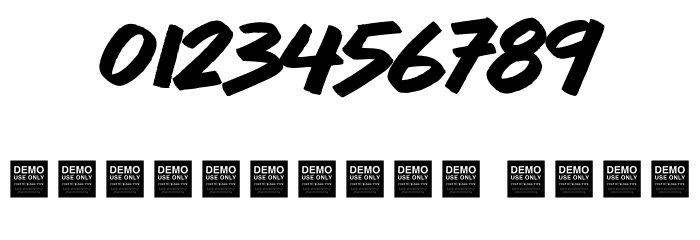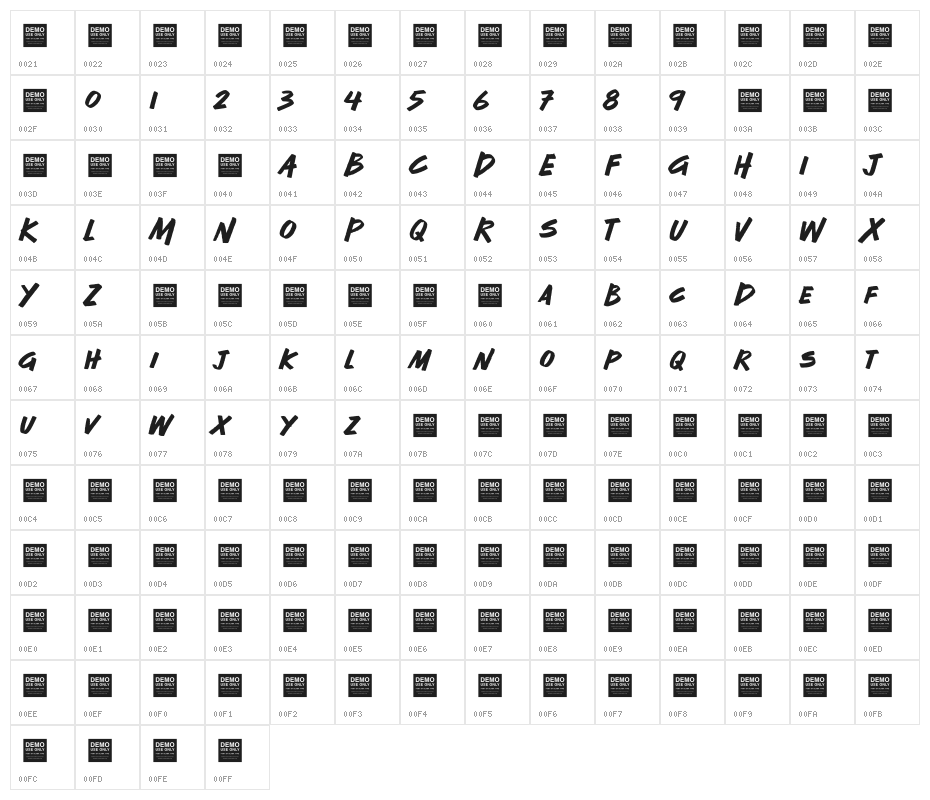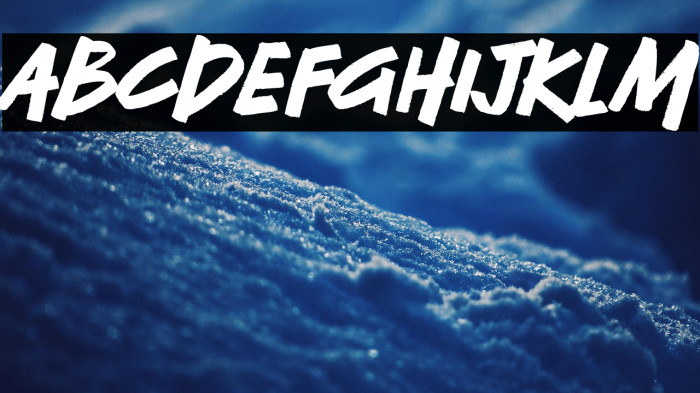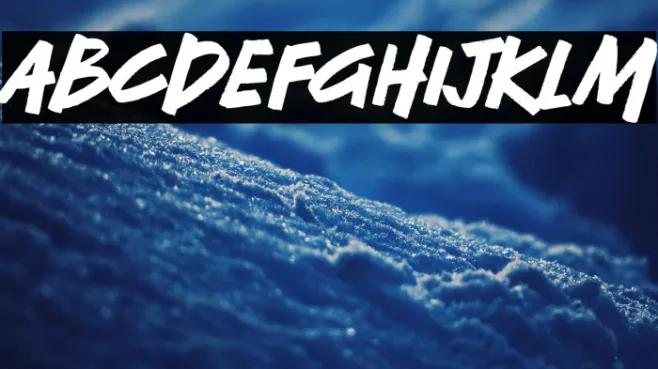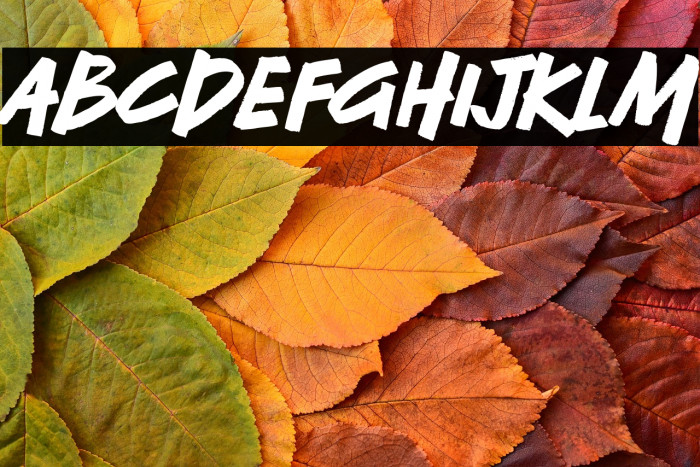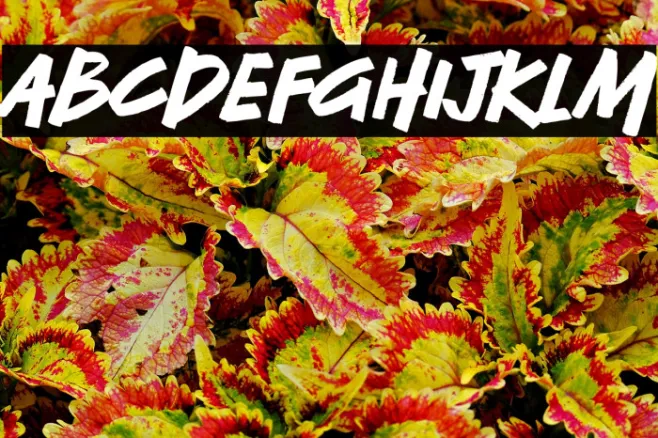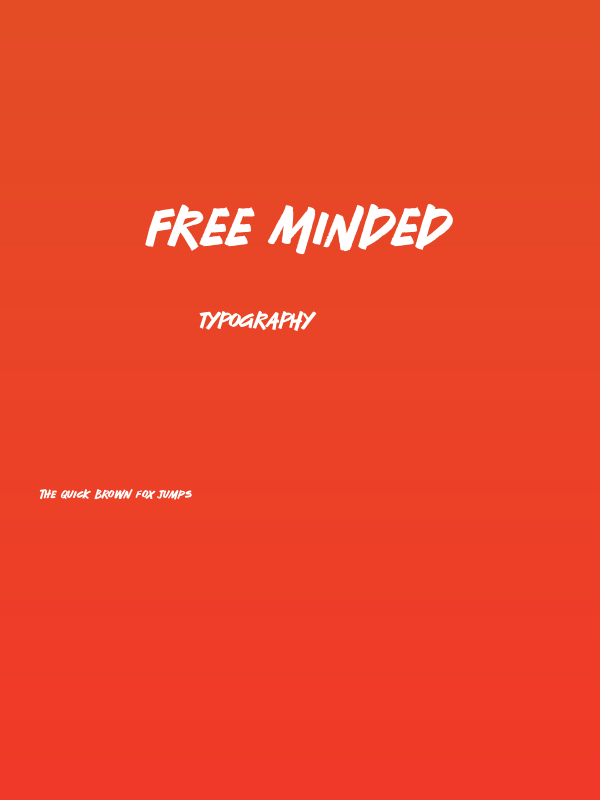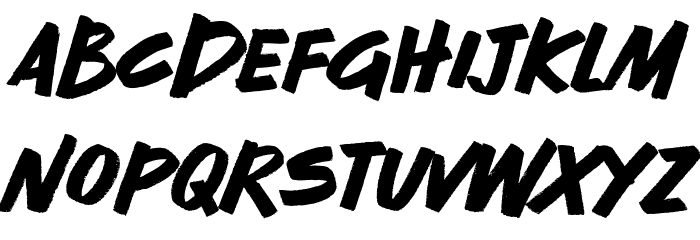
Free Minded Font
Free Minded Description
This font exudes a bold and dynamic energy, characterized by its thick, brush-like strokes that convey a sense of movement and spontaneity. The uppercase letters are robust and slightly slanted, giving them a forward momentum that suggests action and excitement. The lowercase letters maintain this energetic style, with a consistent thickness that ensures readability while still appearing lively and informal. The numerals are equally bold, matching the overall style of the alphabet, making them suitable for impactful displays. This font's unique style makes it ideal for projects that require a sense of urgency or creativity.
| Proposed Projects | Perfect for posters, headlines, branding, and any design needing a bold, energetic touch. |